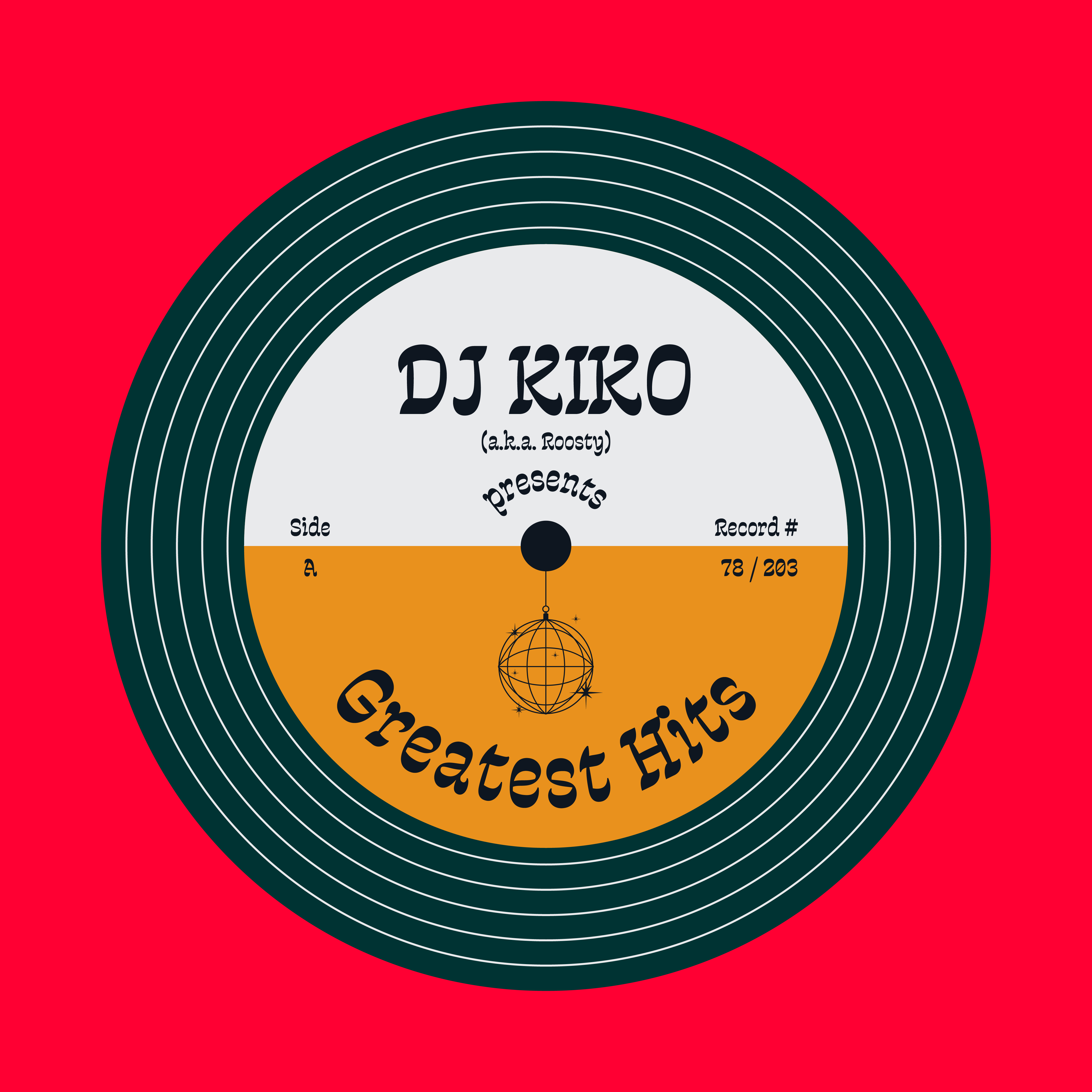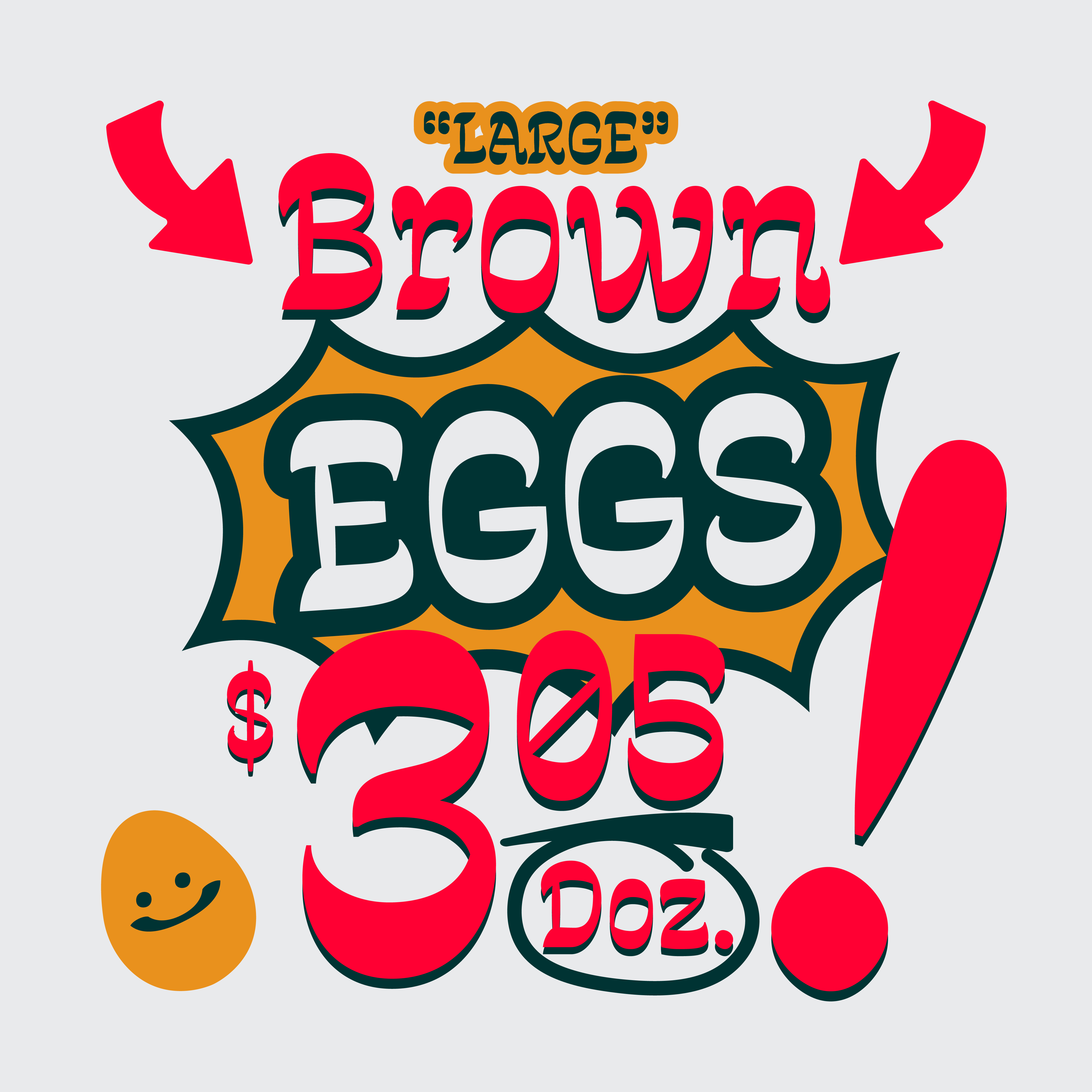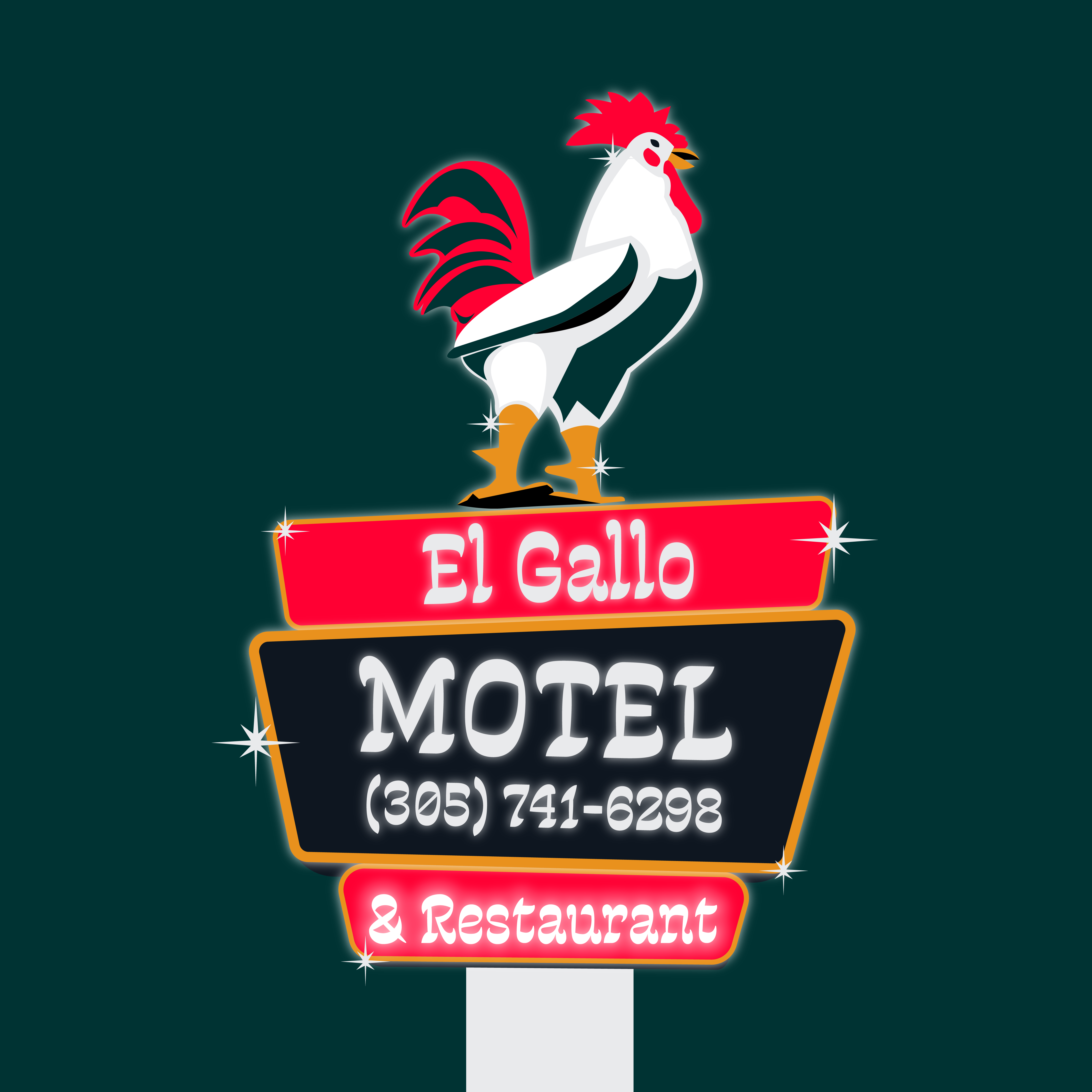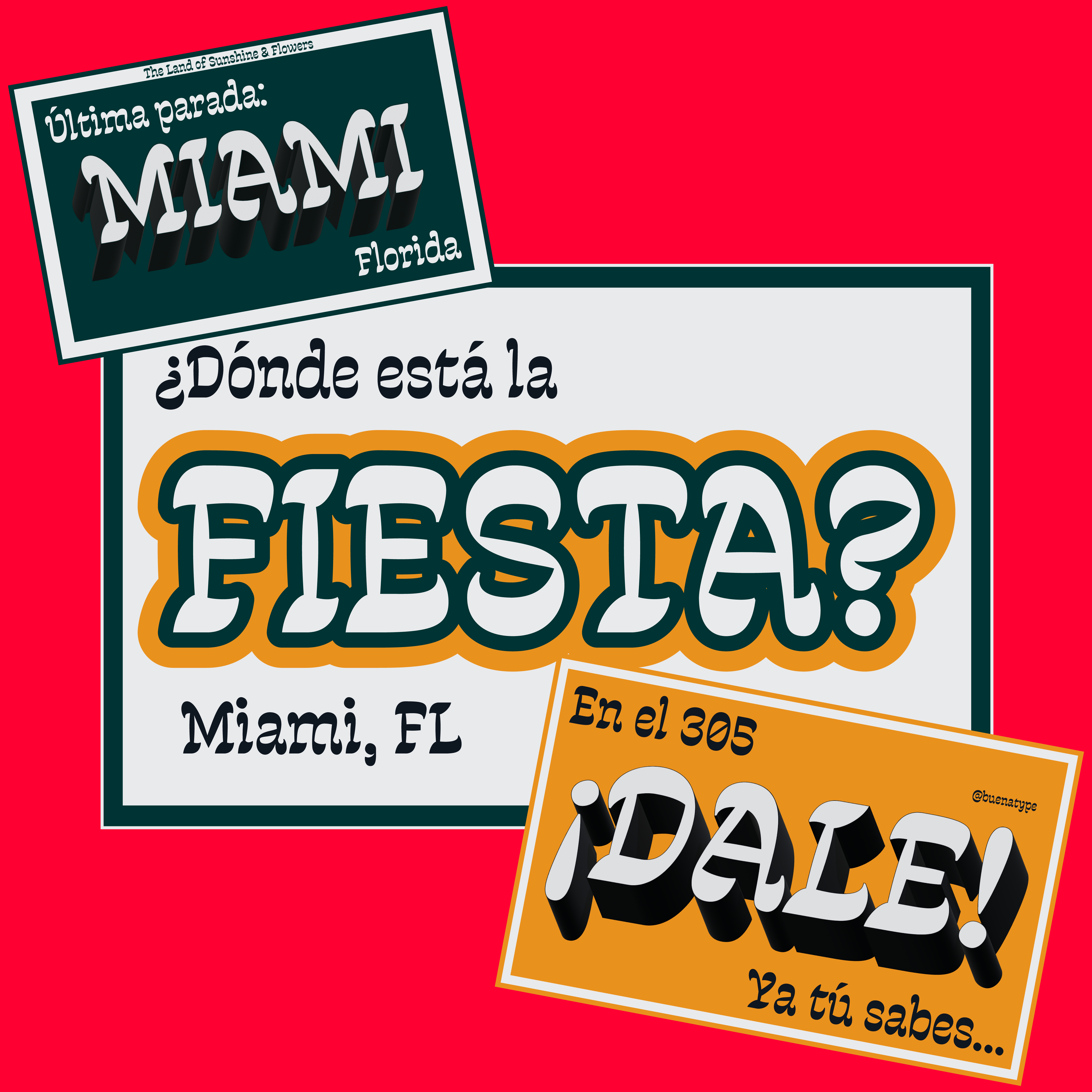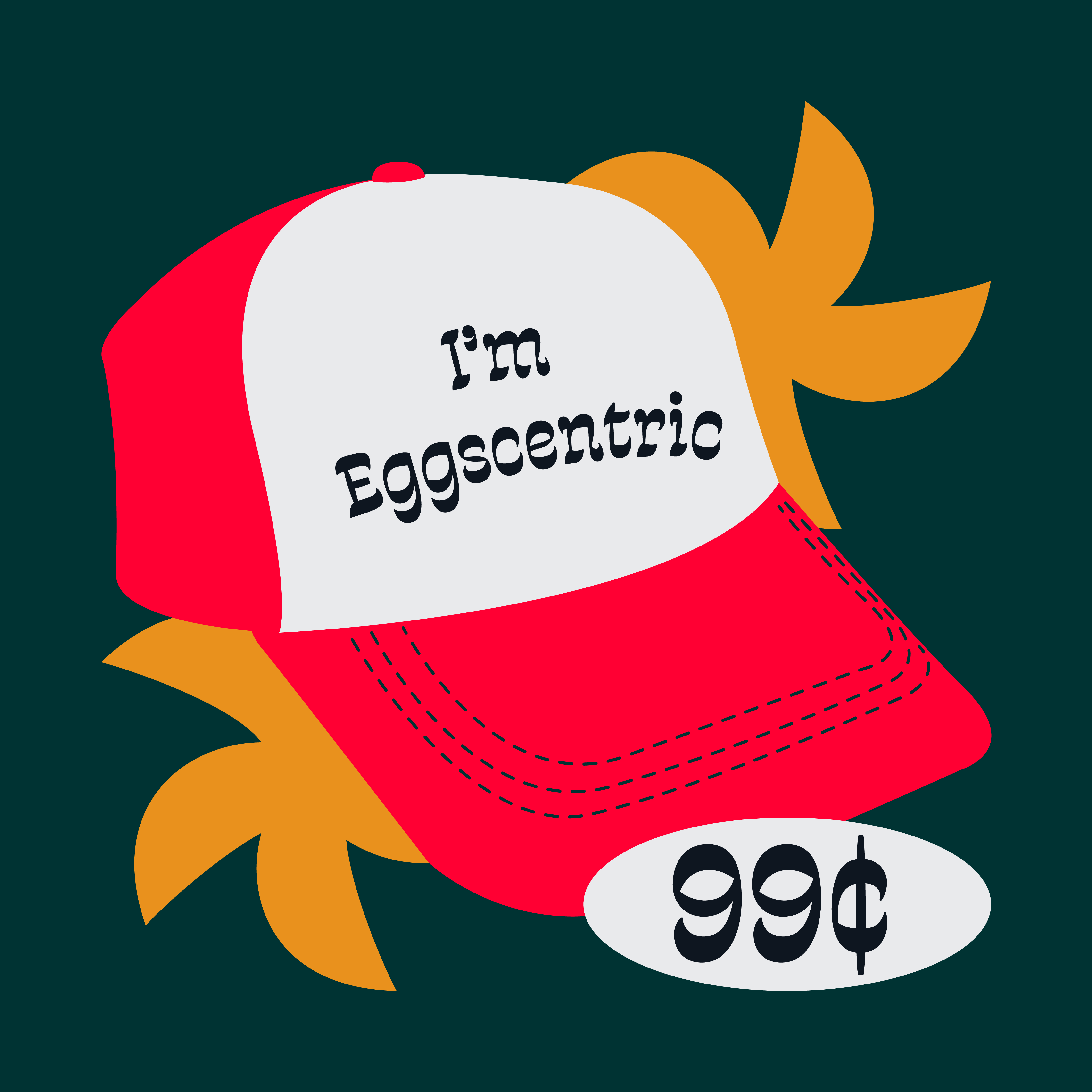
BT KIKO
BT Kiko is a reverse-contrast display typeface inspired by the strut and swagger of its namesake rooster. With thick horizontals, concave stems, and droplet terminals that echo tail feathers, it brings personality in every stroke. Drawn at a 135° angle from the natural tilt of my writing hand, Kiko embraces its quirks with pride. Designed for bold expression, it shines across packaging, headlines, signage, and eccentric visual identities.
Struts with spirit & eccentricity.
Talks with his chest. Writes with flair.
Basks in the mango sun, flaunts midnight feathers.